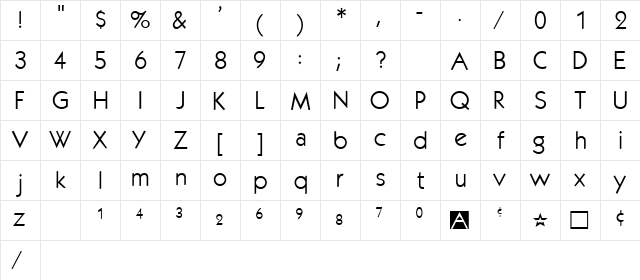
KabelMedium Regular Font Preview
KabelMedium Regular
Design Context for KabelMedium Typeface
KabelMedium is a composed and adaptable typeface that performs quietly and consistently across a wide range of design contexts.